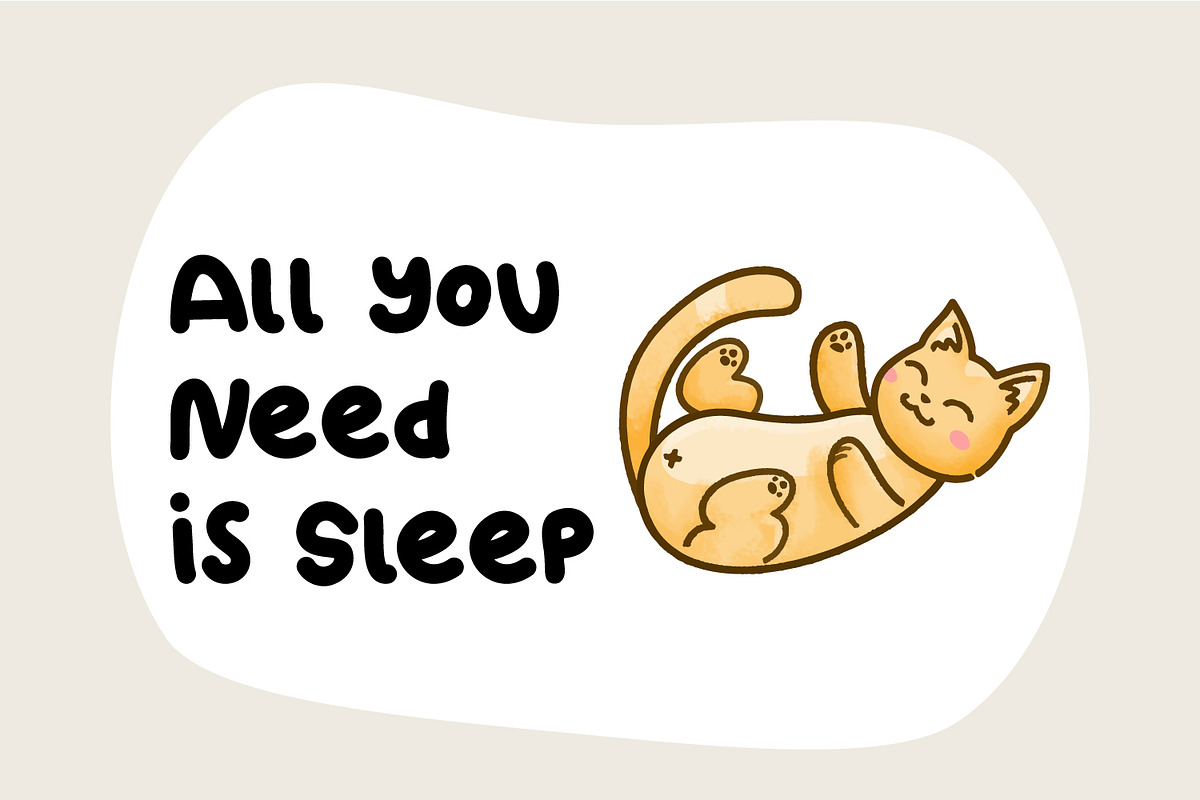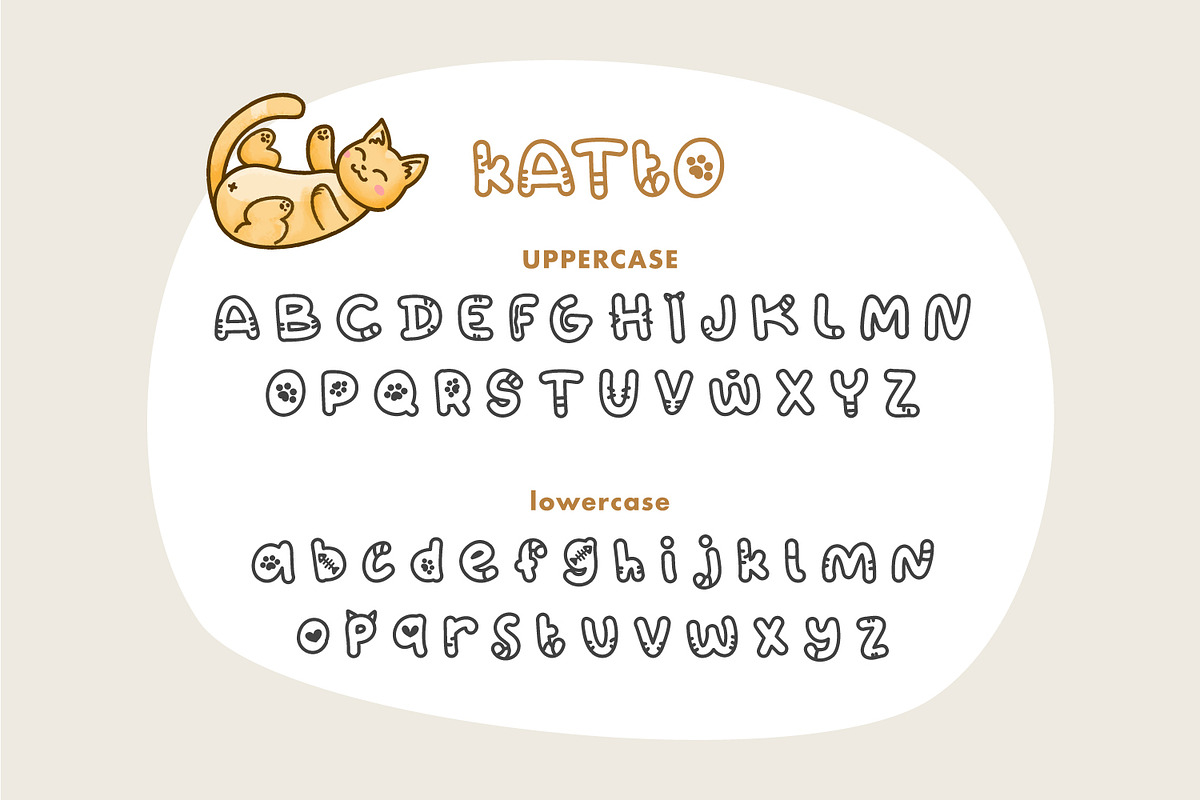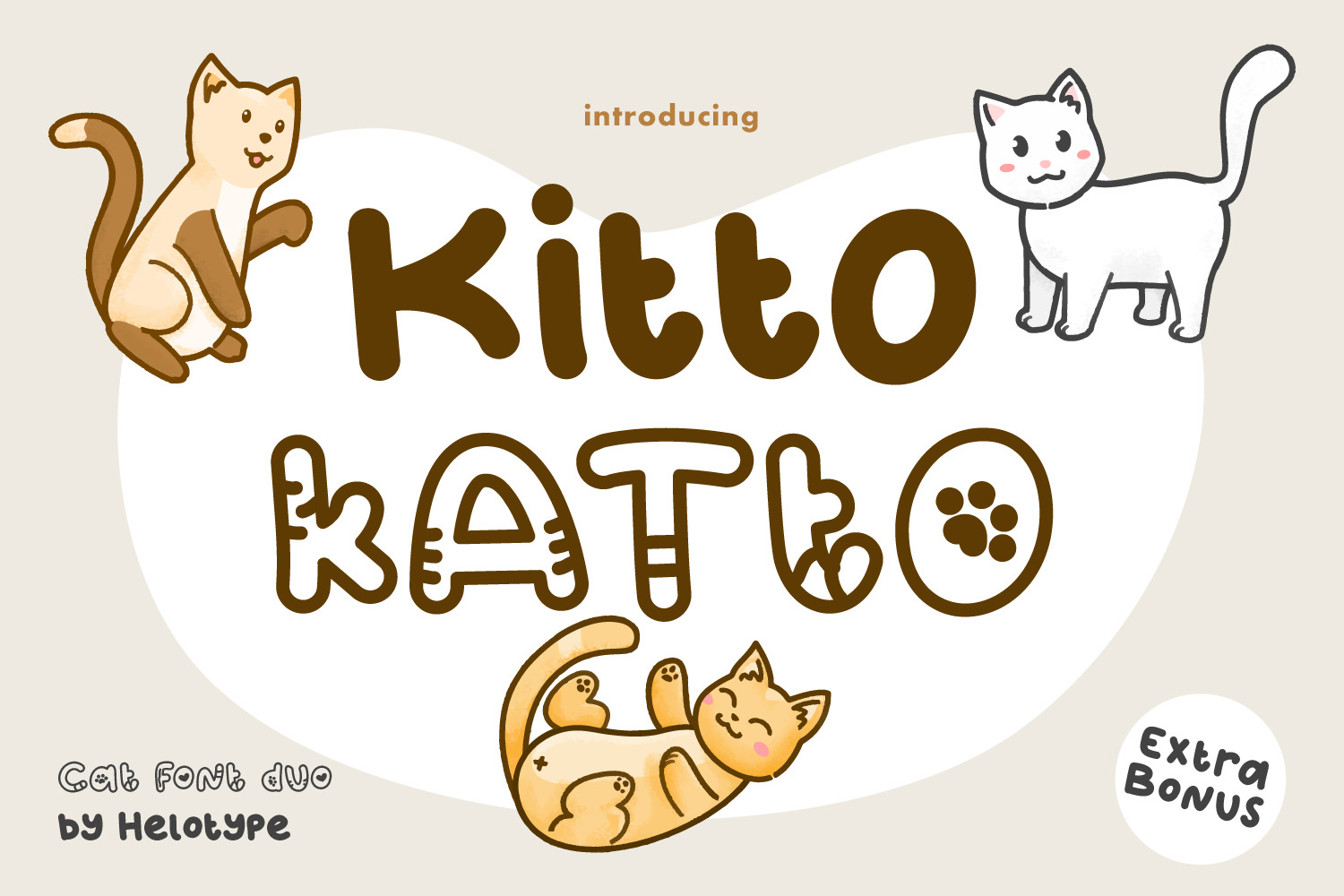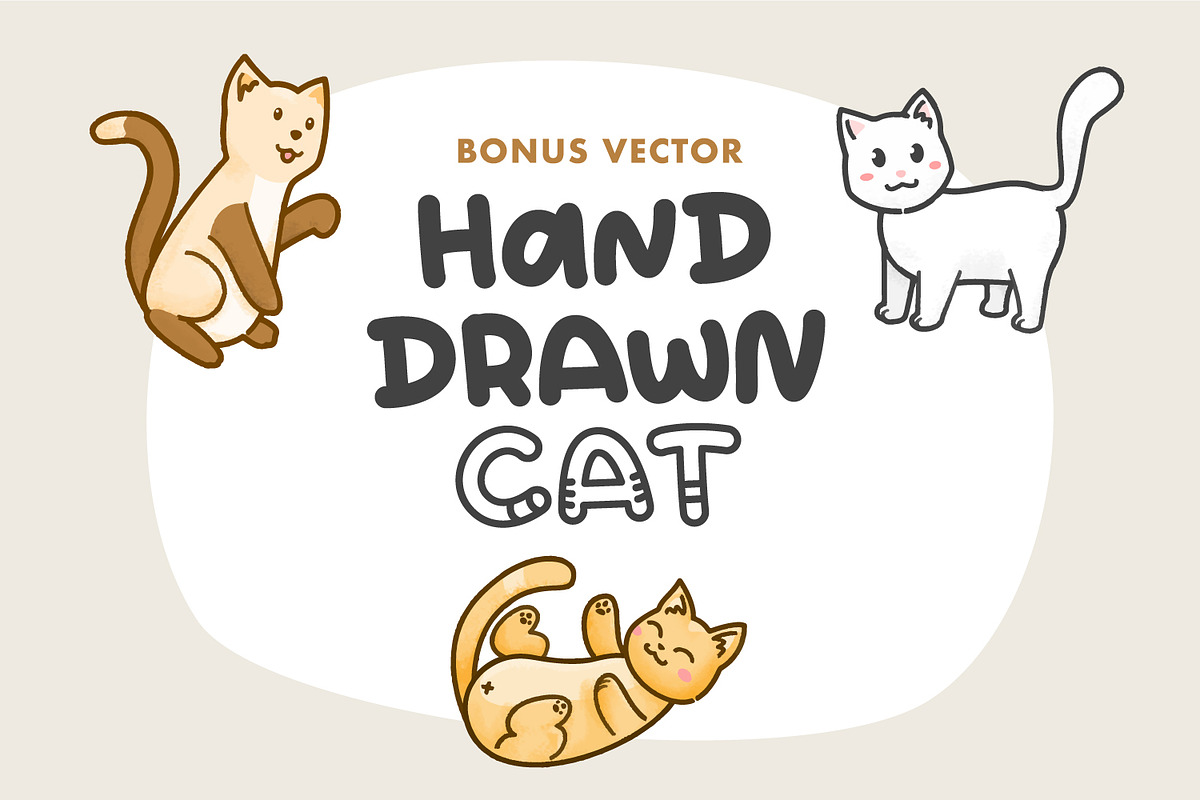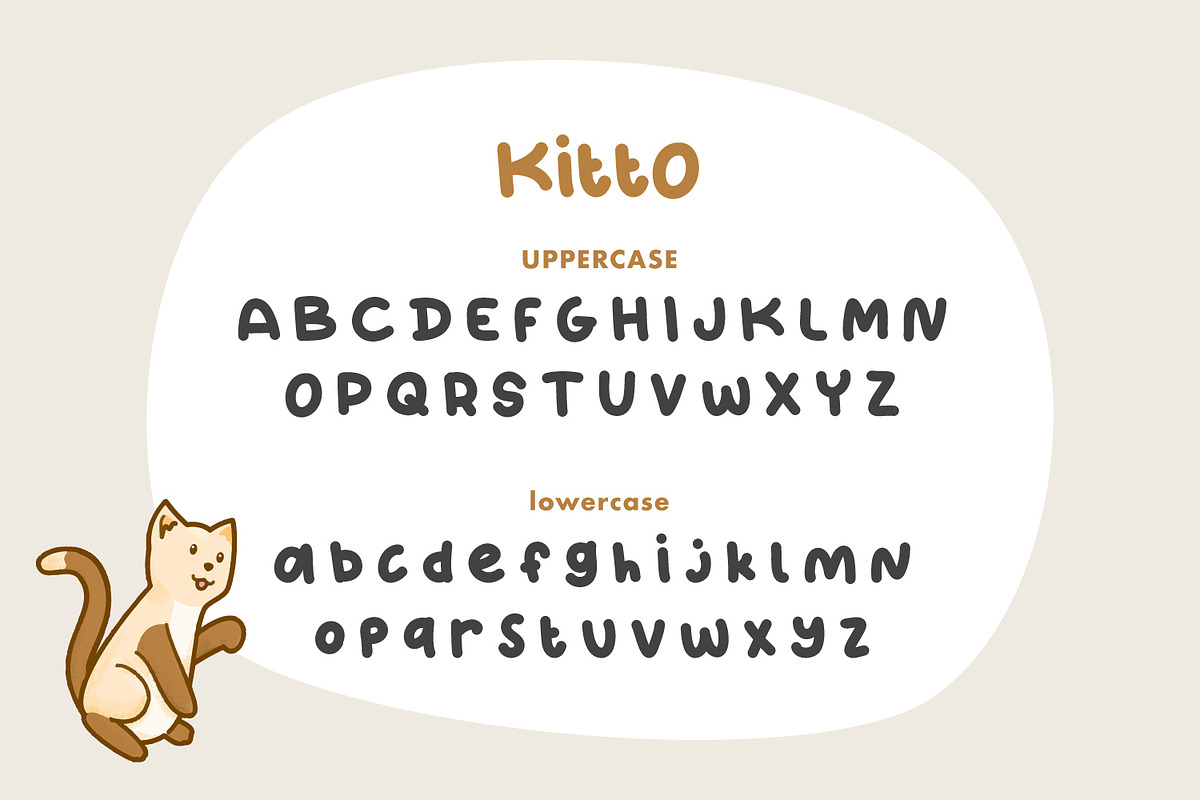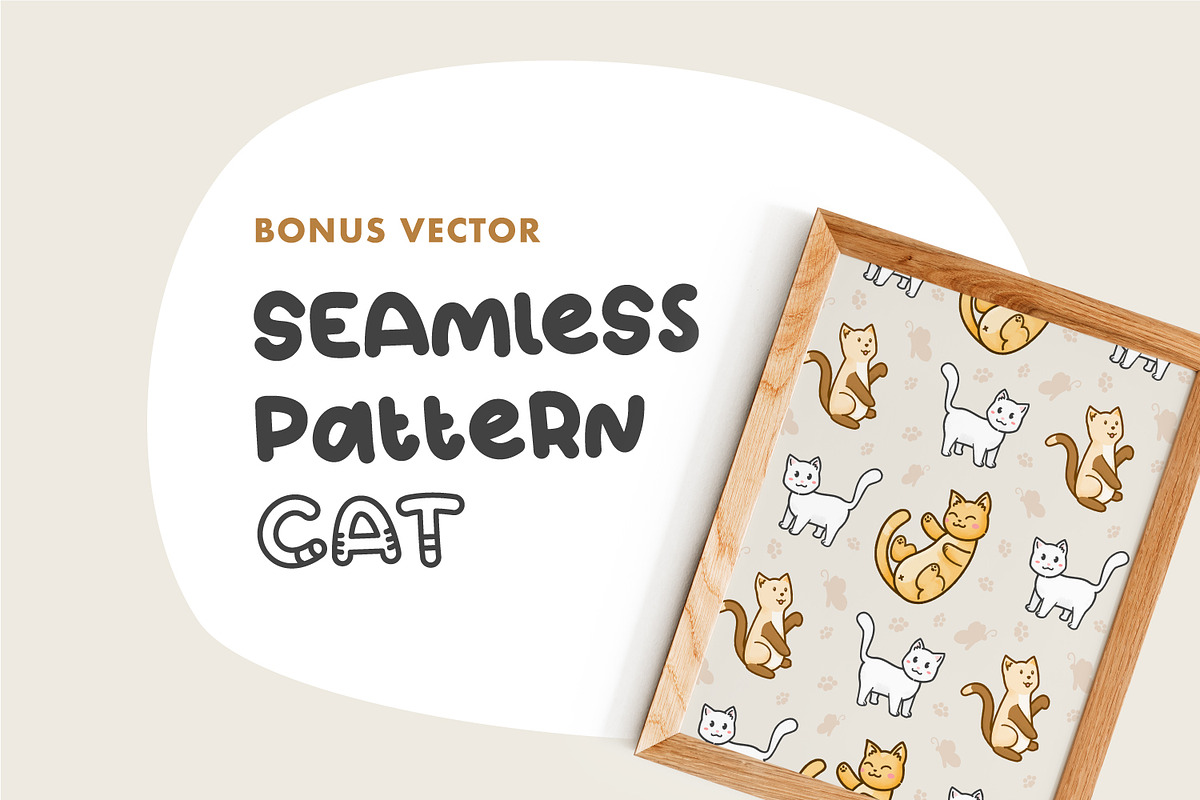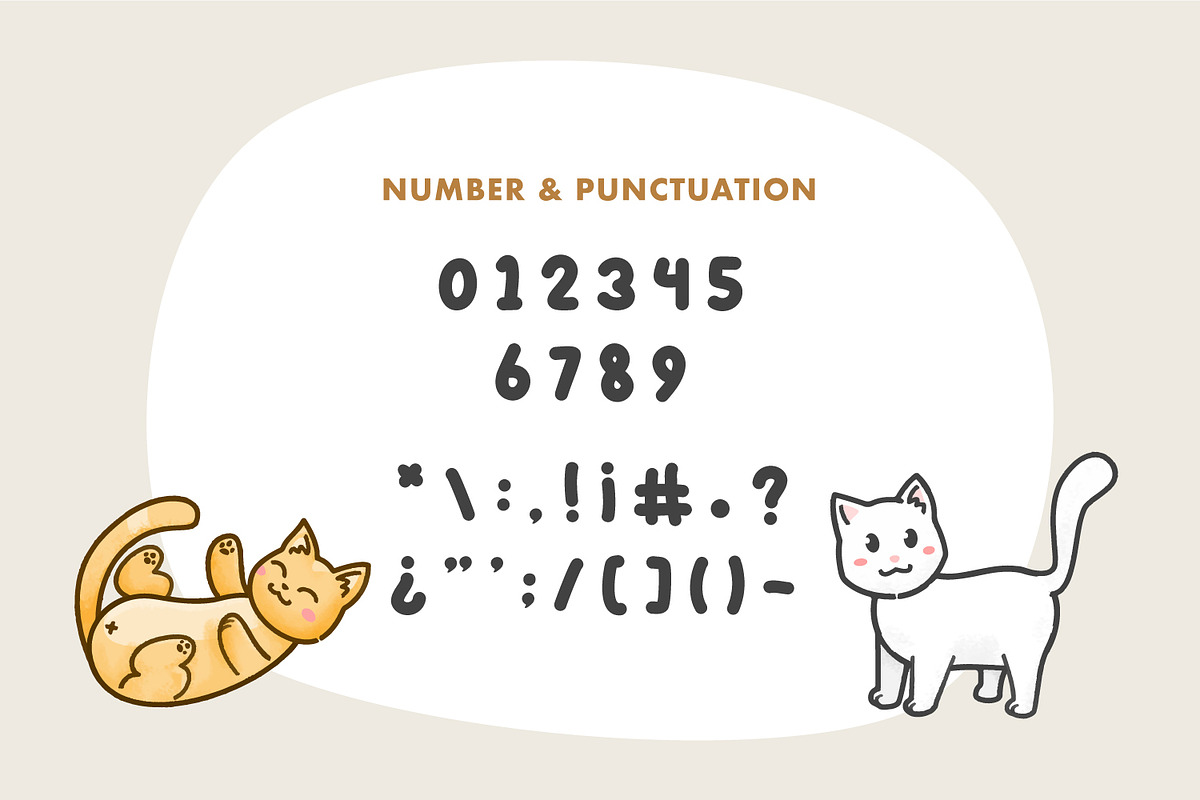
Kitto Katto Cat Theme Font
This doodle bold font duo can create some fun & playful character on your design. This duo typeface regular and outline come with uppercase, lowercase, punctuation, numbers, and multilingual. Perfect for DIY projects, kids-showers, nursery art, cards, invitations, greeting cards, identities, packaging designs, cases, photos, posters, bags, wall art, logos, quotes, blogs, websites, banners, clothes and more.
Extra come with 3 hand-made cat characters and 1 seamless pattern. TTF, OTF, and WOFF files are included. I've so much fun designing this typeface, hope you also get more fun using it.